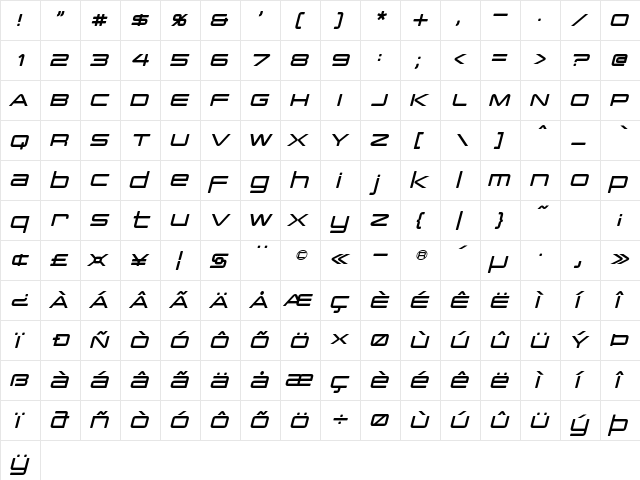
PCap Terminal Italic
| Designer | Neale Davidson |
Design Context for PCap Terminal Typeface
PCap Terminal is a composed and adaptable typeface that performs quietly and consistently across a wide range of design contexts. The slanted form adds forward momentum and visual energy.
Pro Tip: Use PCap Terminal for emphasis, pull quotes, and subheadings where its slanted energy can add rhythm to the layout.